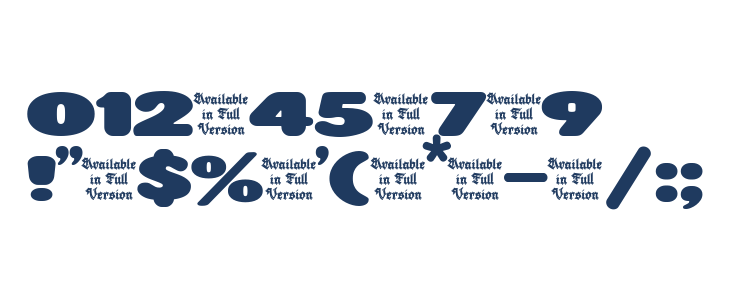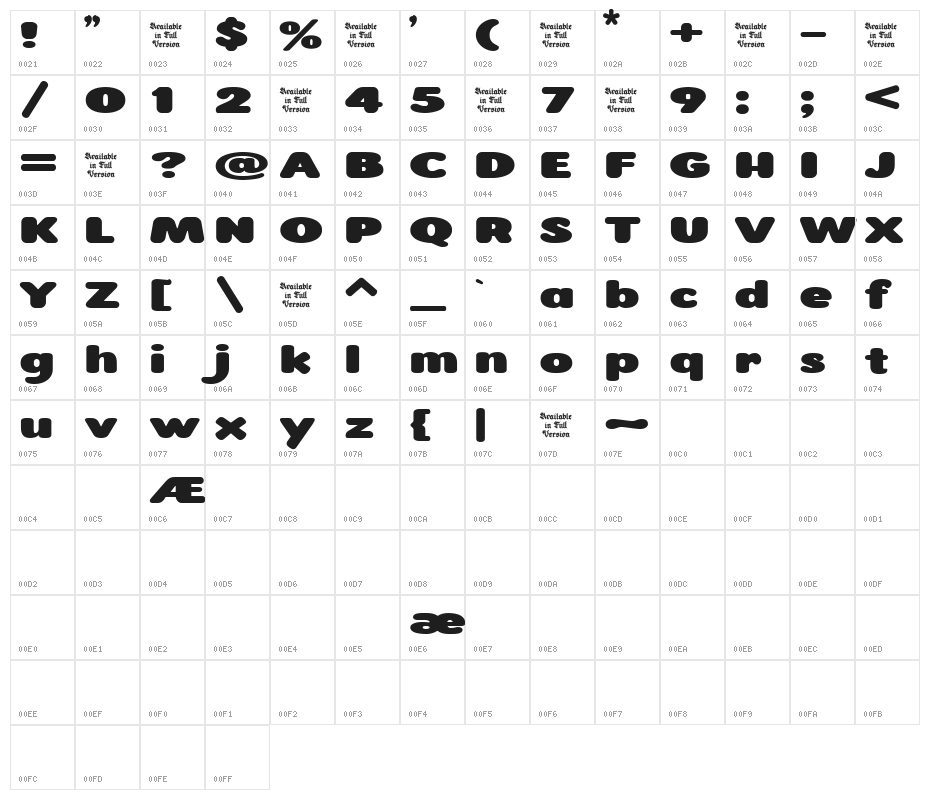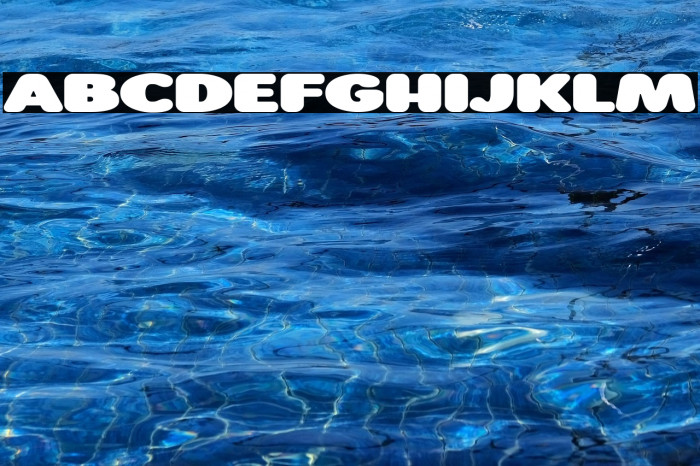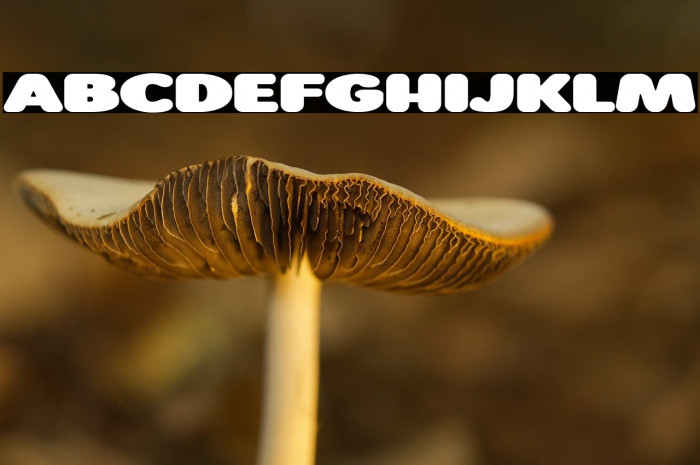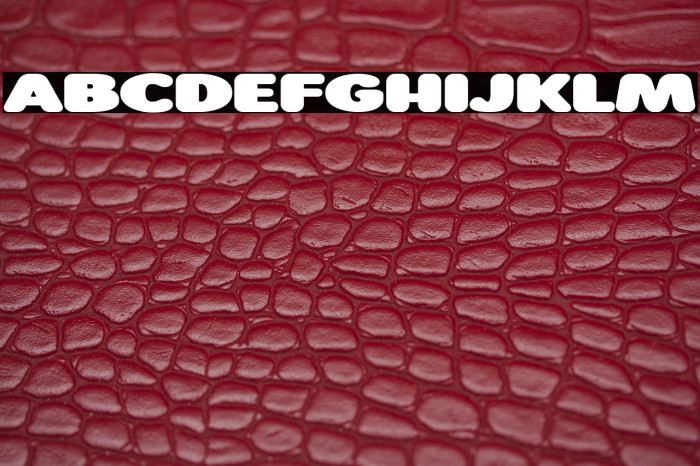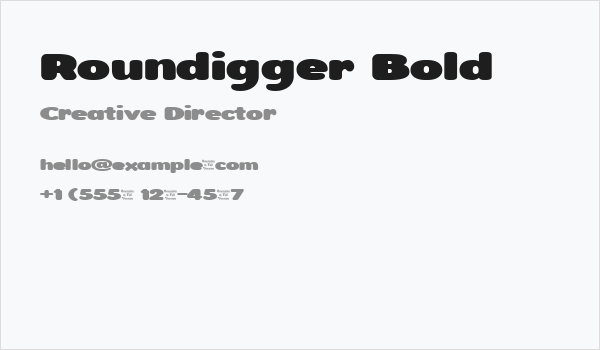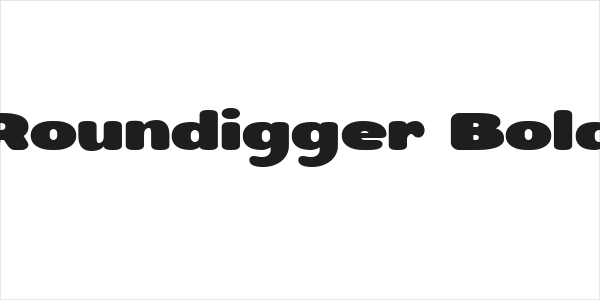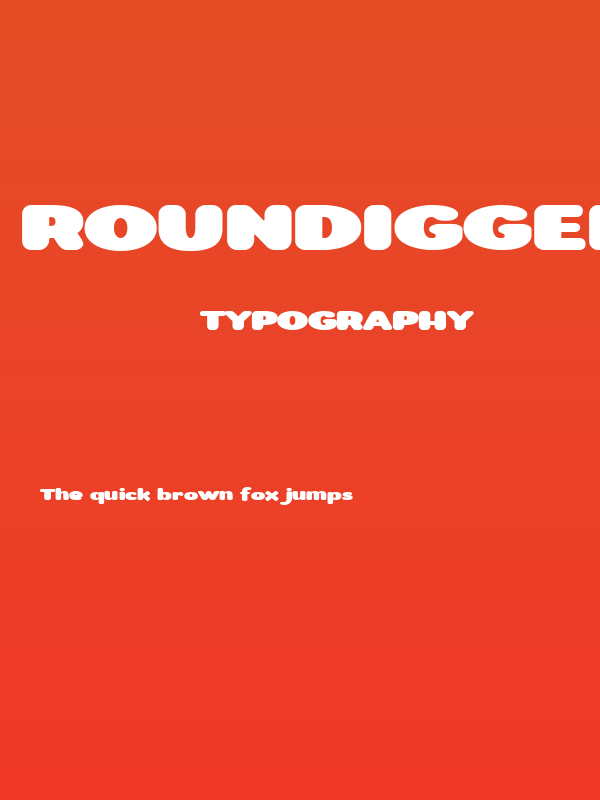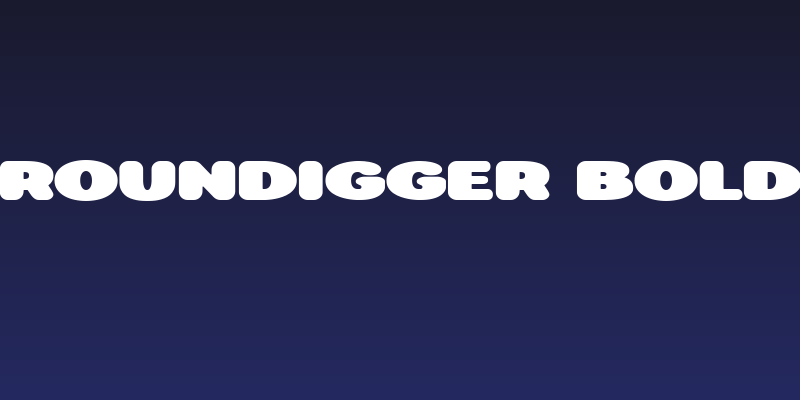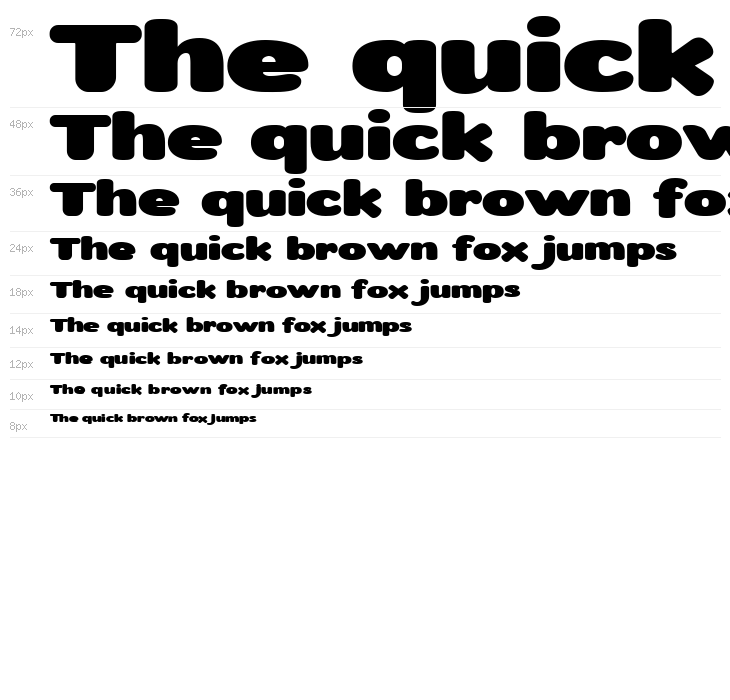
Roundigger Bold Font
Roundigger Bold Description
This font features bold, rounded characters with a playful and modern aesthetic. The letters are uniformly thick, giving a strong and impactful appearance. The rounded edges soften the overall look, making it approachable and friendly. The uppercase and lowercase letters maintain consistent proportions, ensuring readability. The numbers are equally bold and rounded, complementing the alphabetic characters. This style is ideal for projects that require a bold statement while maintaining a casual and inviting tone.
| Proposed Projects | Ideal for branding, children's books, playful posters, and modern web design. |